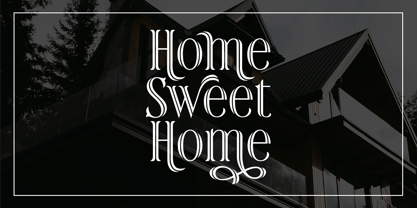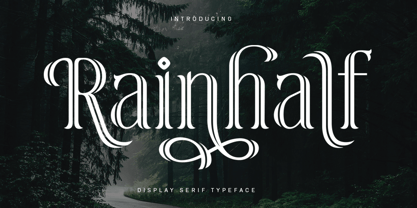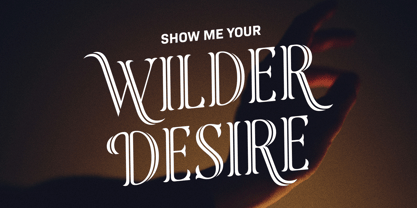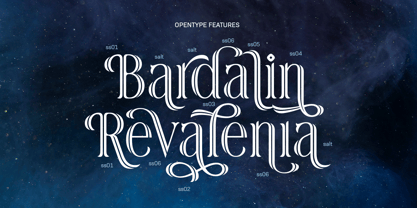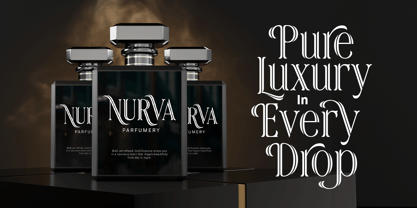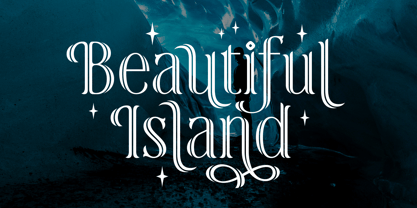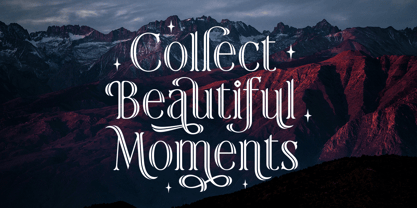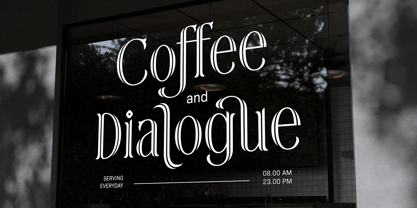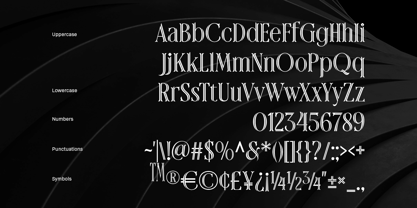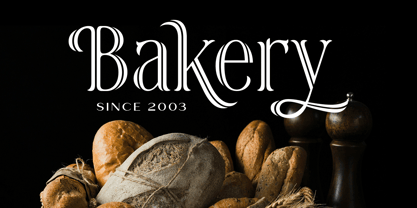
Rainhalf
Rainhalf is a distinctive display serif that blends timeless sophistication with expressive contemporary flair. Designed with refined proportions, graceful curves, and elegant high-contrast strokes, it instantly elevates headlines, logos, branding, editorial layouts, packaging, and luxury-inspired designs. Every character is carefully crafted to create a memorable visual presence, making your typography feel both artistic and effortlessly premium.
From luxury branding and invitations to café signage, fashion, and social media, Rainhalf brings sophistication to every project. Its decorative details transform simple words into memorable visual statements. Packed with OpenType features, Rainhalf includes elegant swashes, stylistic alternates, and multiple stylistic sets. Mix and match glyphs effortlessly to create distinctive typography with a refined, personalized look.
• Uppercase
• Lowercase
• Numbers & symbols
• Punctuation
• Multilingual support
• Stylistic alternates
• Standard ligatures
• Stylistic set 01-06